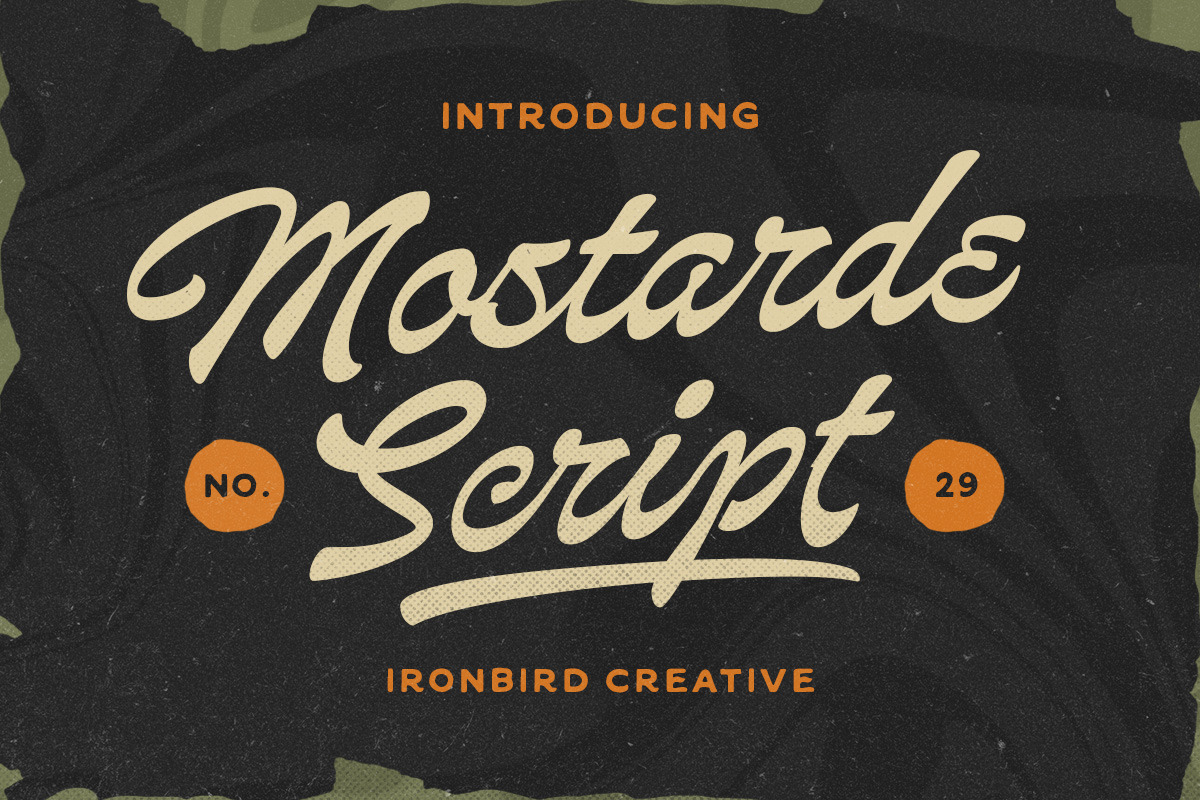
IC Mostarde - Script Font
Mostarde, Amazing hand lettering look bold script typeface with attractive swashes and alternates! This font perfectly made to be applied especially in logo, and the other various formal forms such as invitations, labels, logos, magazines, books, greeting / wedding cards, packaging, fashion, make up, stationery, novels, labels or any type of advertising purpose.
- alternates
- swashes